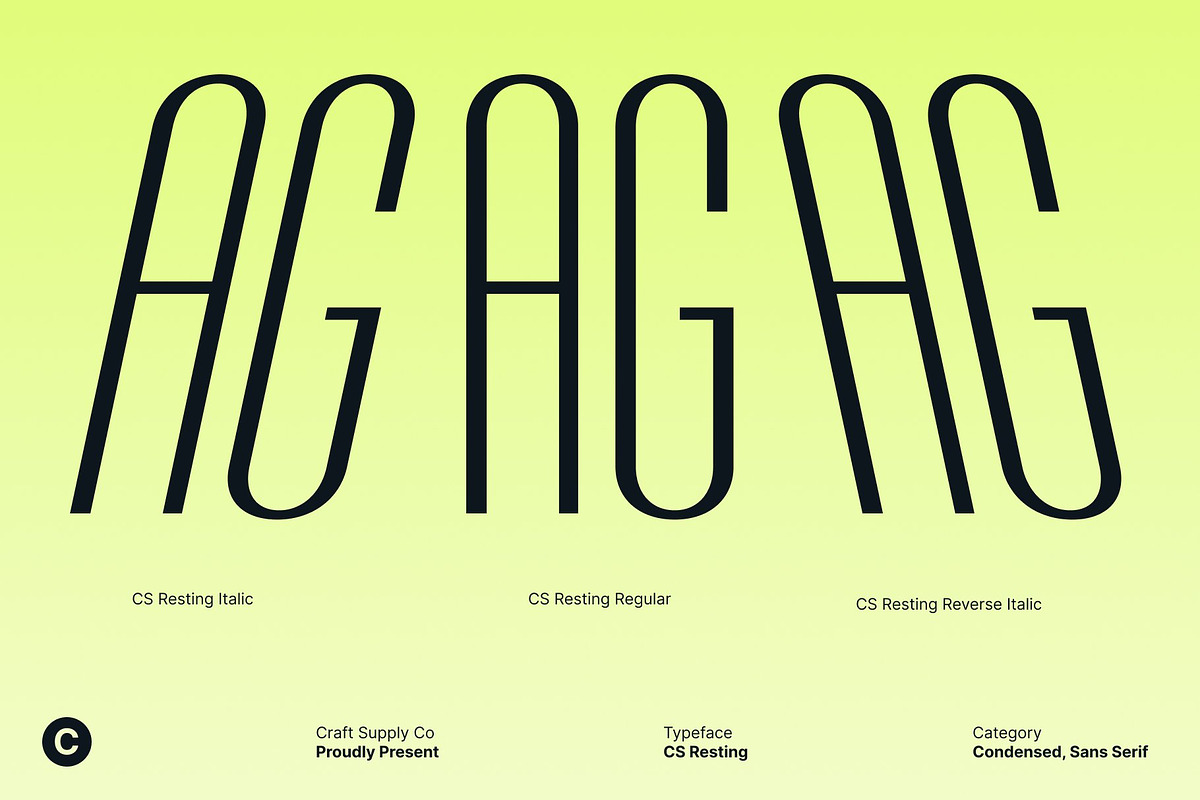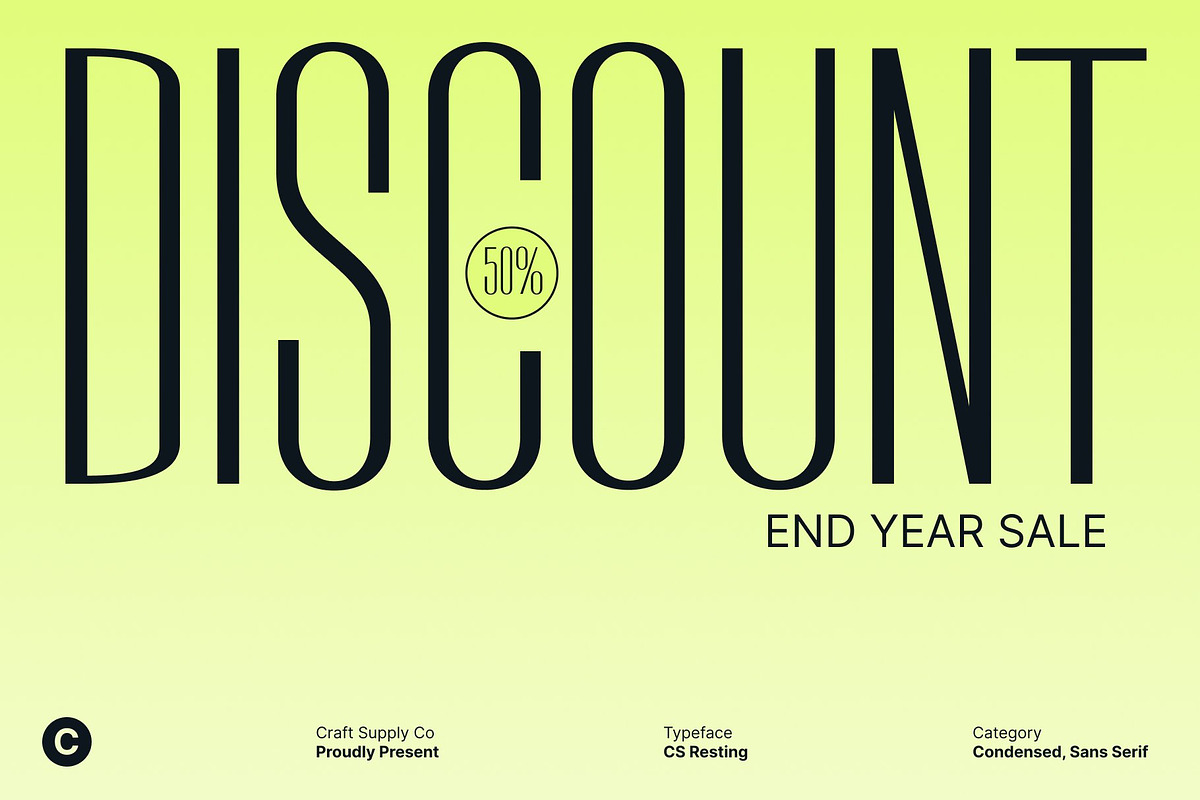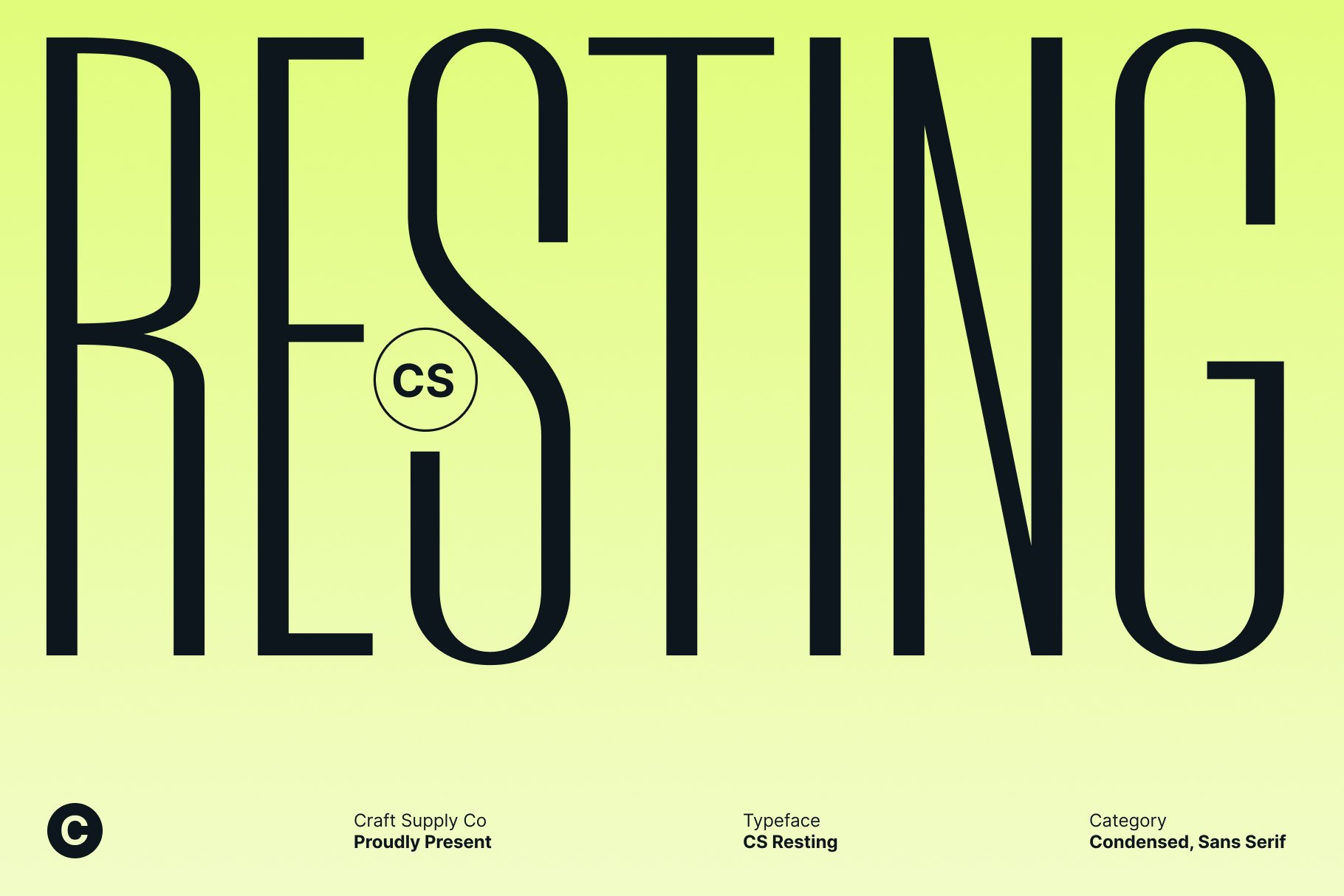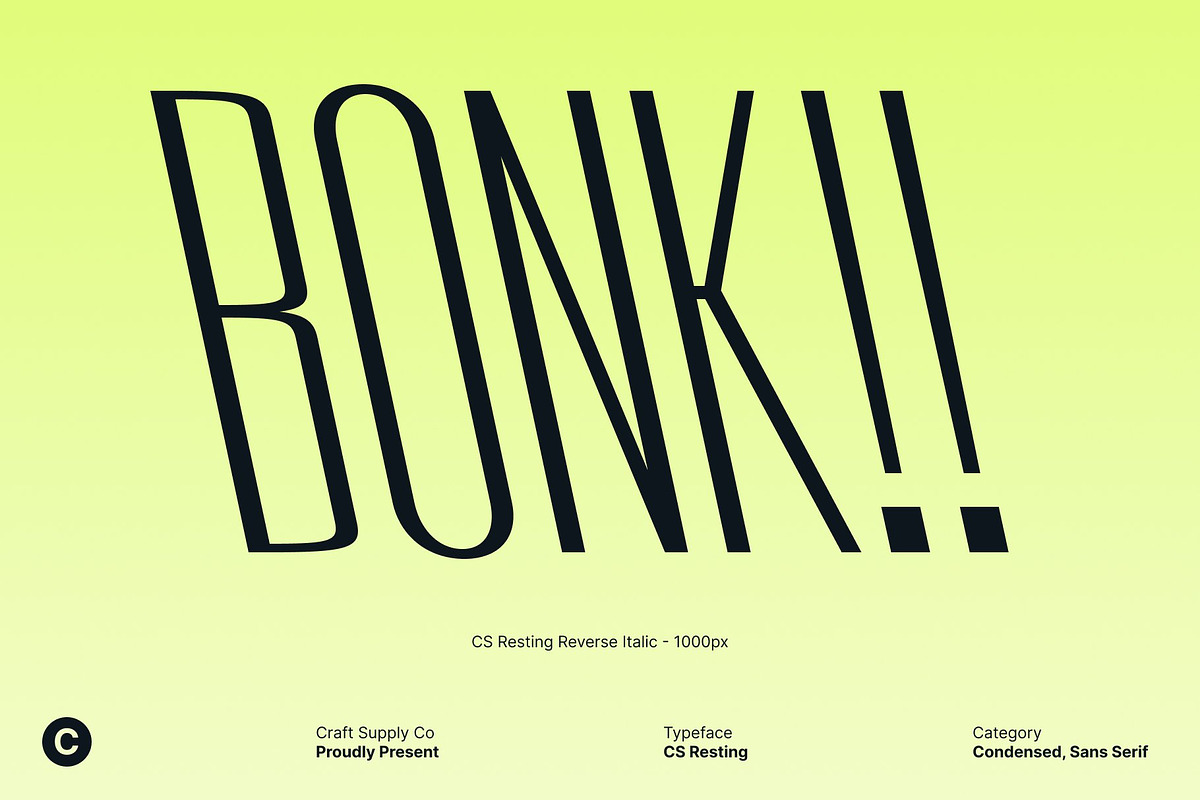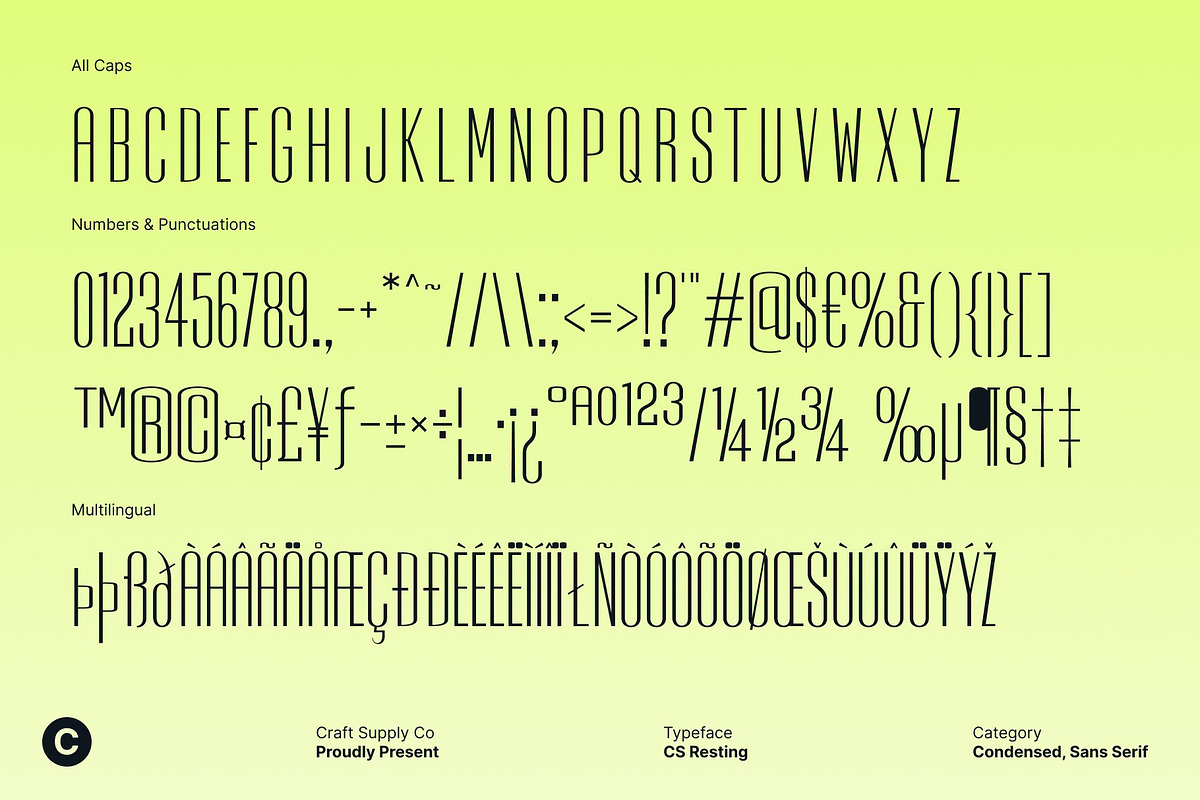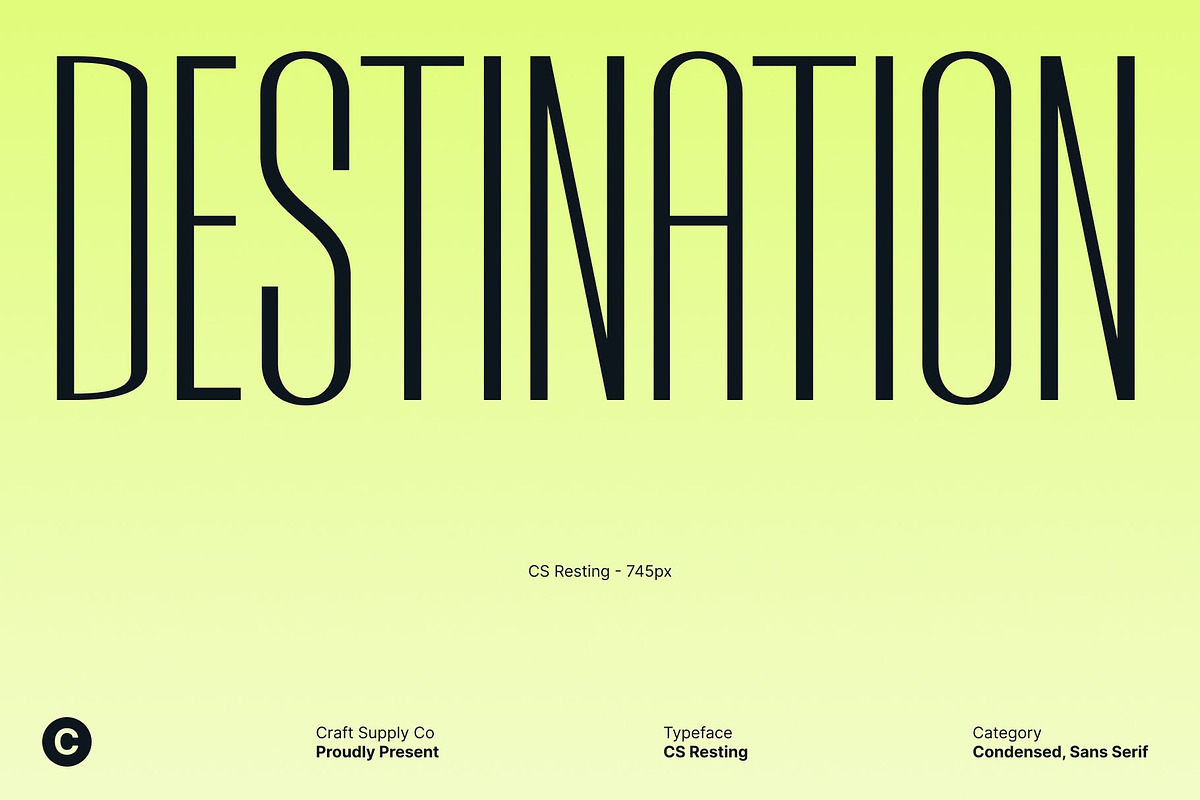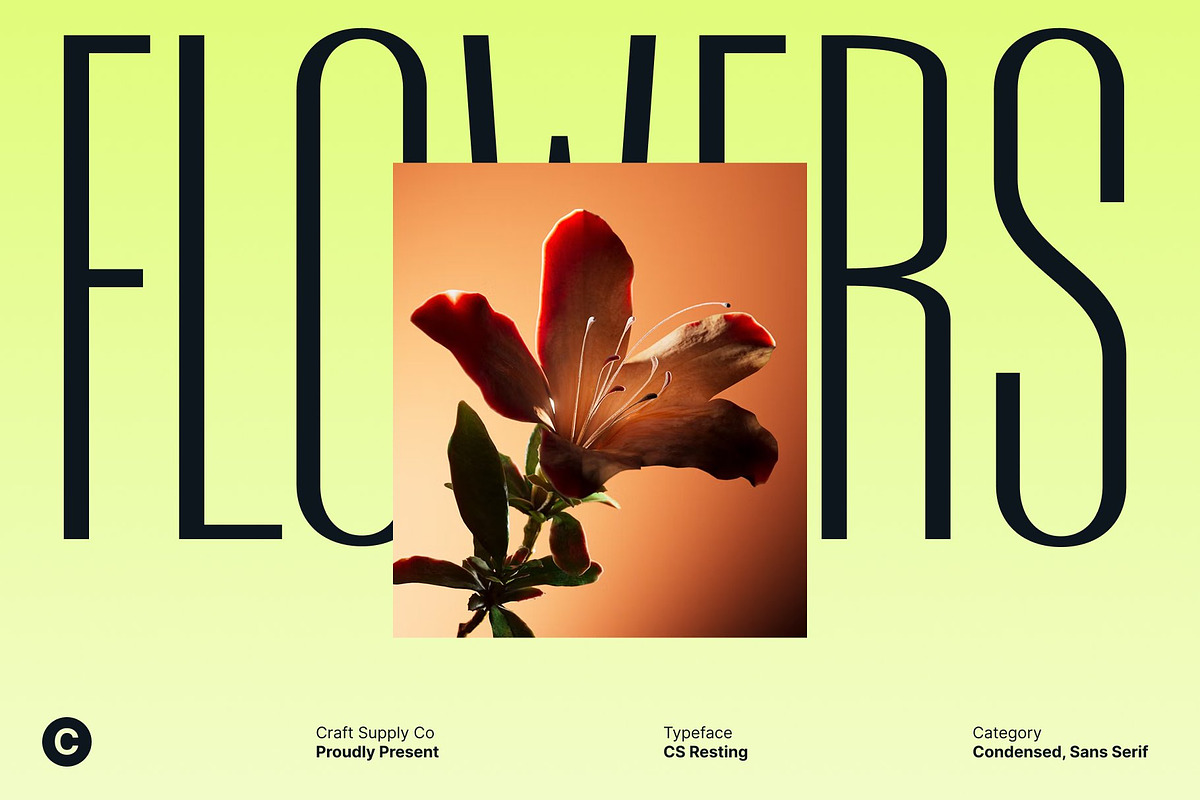
CS Resting – Modern Condensed Font
CS Resting – Condensed Sans Serif: Compact Strength with Modern Appeal
Modern Condensed Sans Serif for Maximum Impact This is a compact sans serif font, confident typography even in tight spaces. Its clean lines and contemporary structure ensure strong visual presence, making it perfect for designers seeking clarity and style in condensed layouts.
Powerful Readability in Limited Space With its condensed proportions, this font maximizes space efficiency without compromising legibility. Each letter maintains balance and rhythm, ensuring text remains striking and readable whether used in headlines, posters, or digital interfaces.
Sleek, Minimalist Design Blending modern aesthetics with functional design, this font offers a sleek, professional look. Its minimalistic letterforms create a contemporary impression while maintaining versatility for various design contexts, from editorial layouts to branding projects.
Ideal for Headlines and Branding This font excels in high-impact applications such as posters, digital campaigns, and branding where space is limited but presence is essential. Its condensed, modern structure delivers a clean, powerful statement every time.
- CS Resting Regular
- CS Resting Italic
- CS Resting Reverse Italic